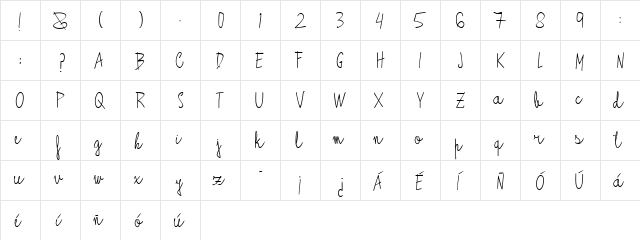
ANTIFONT Regular
| Foundry | Pablo Sepulveda Poblete |
| Designer | Pablo A. Sepulveda Poblete |
ANTIFONT takes a measured approach to typography — its balanced proportions and neutral character make it a reliable workhorse for both digital and print work.